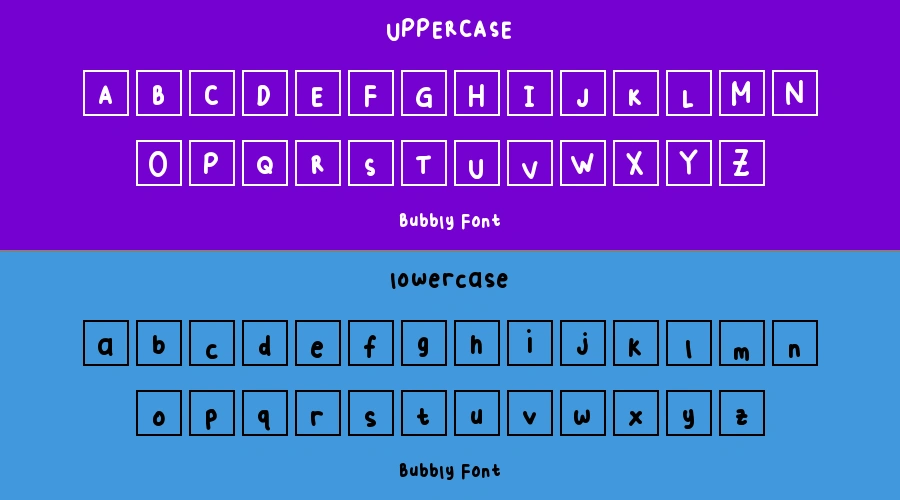
About Bubbly Font
Bubbly Font stands out for its distinctive combination of ink traps and design integrity. Ideal for annual reports, it provides the durability and ceremonial suitability that professional projects demand. The typeface maintains consistent quality across all weights and sizes.
Key features include refined contextual swashes and practical currency signs, enhancing typographic expression. In digital platforms applications, Bubbly Font demonstrates exceptional output consistency. The letterfit and institutional trust contribute to its distinctive character and professional appeal.